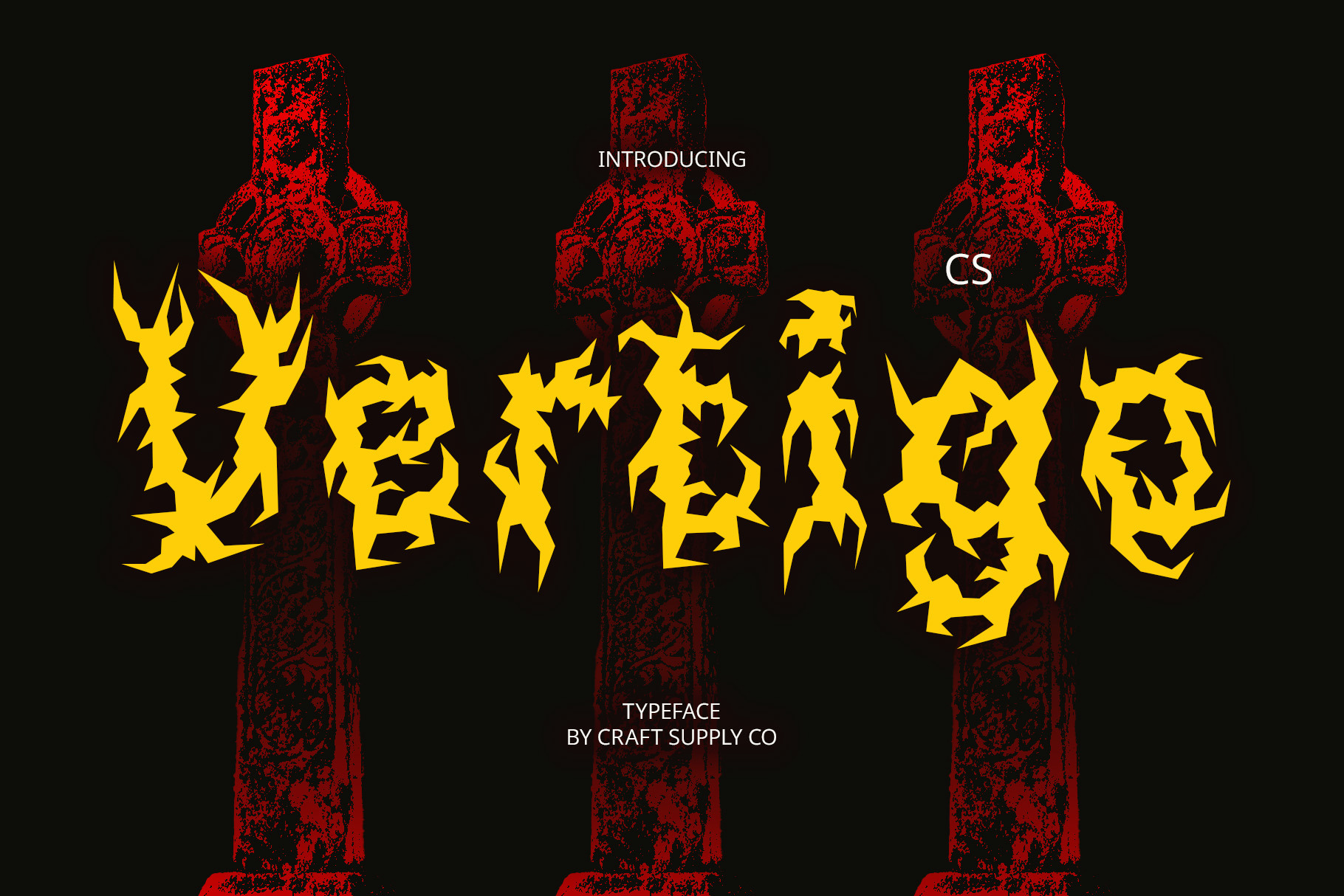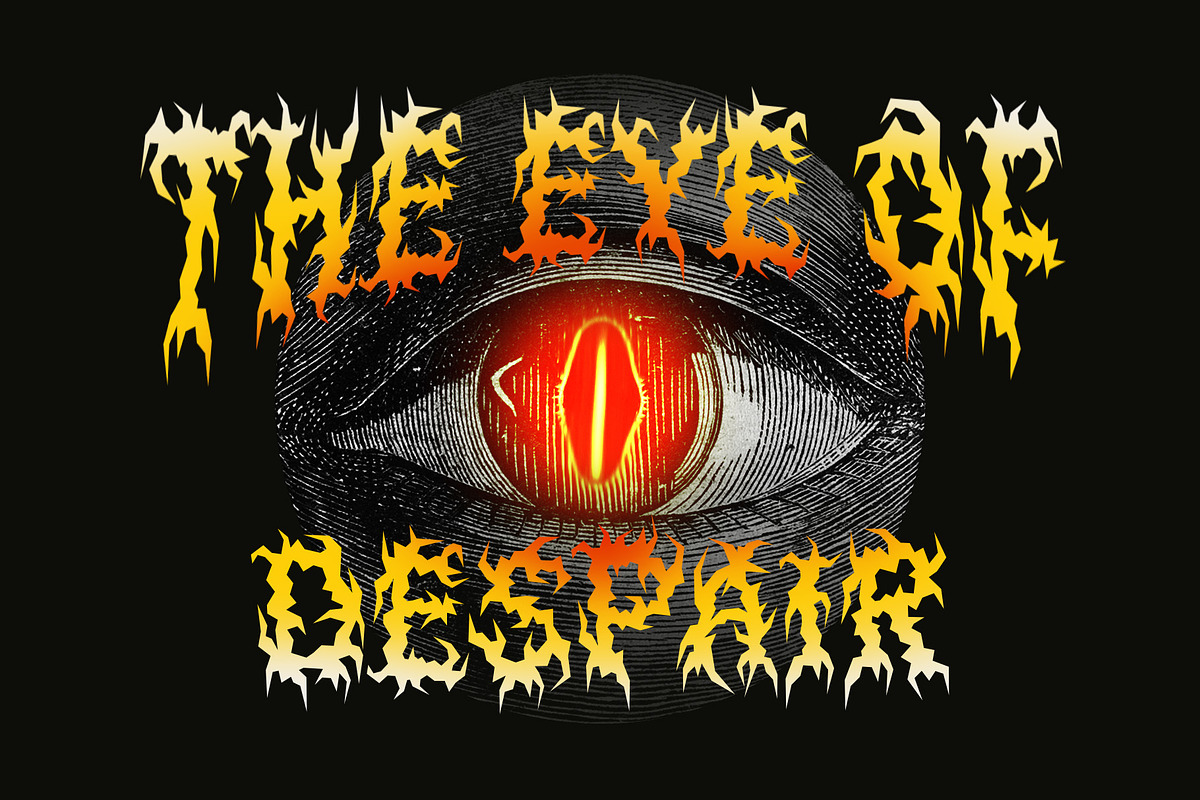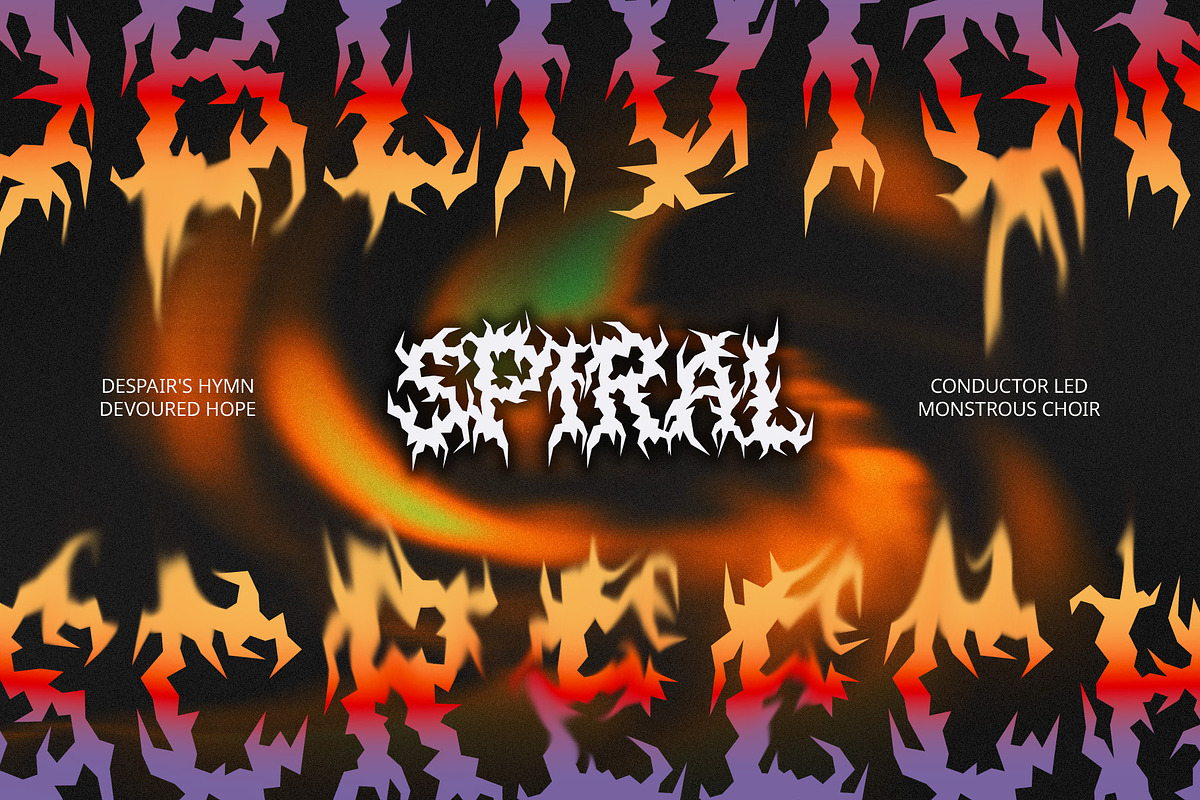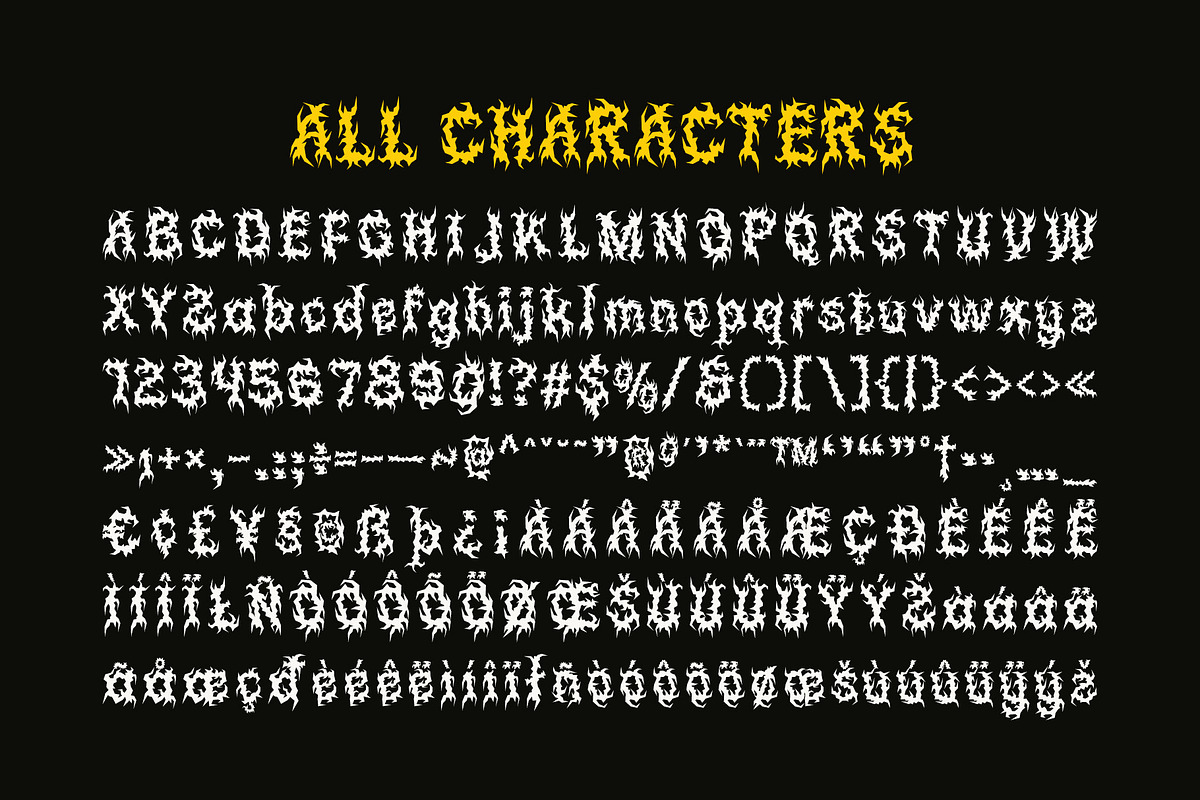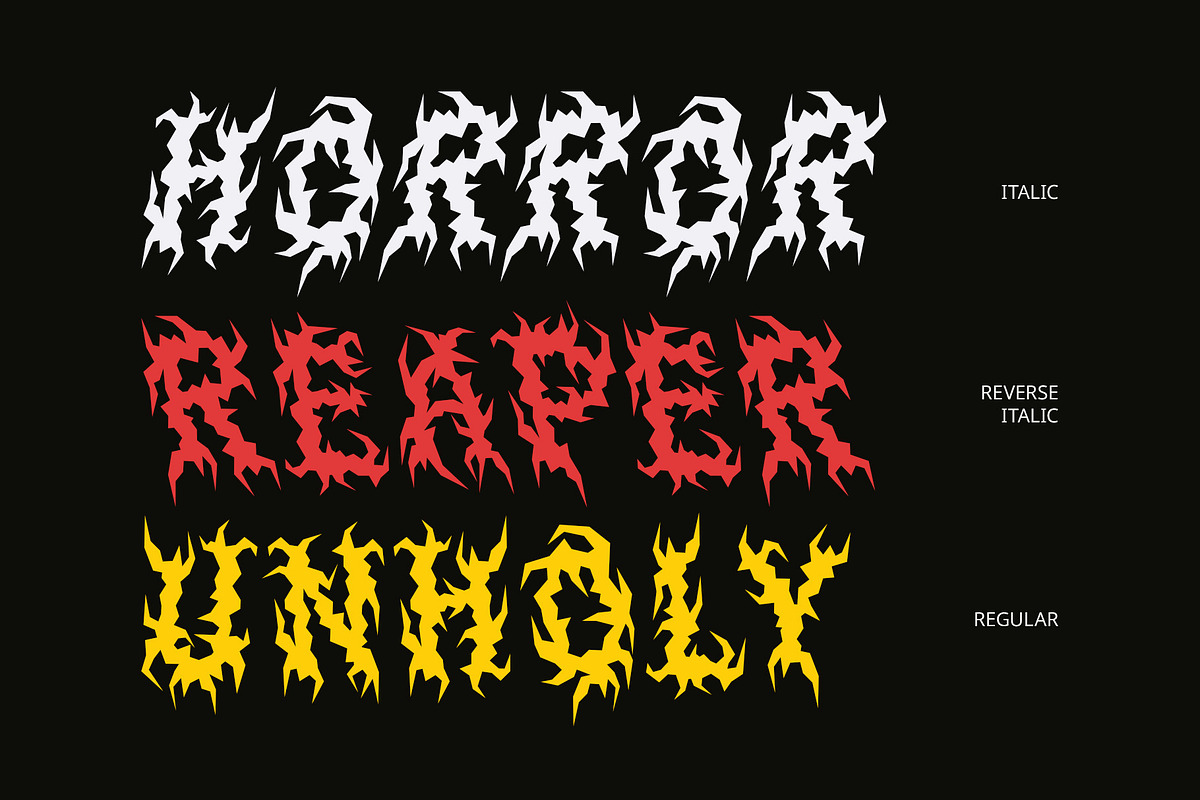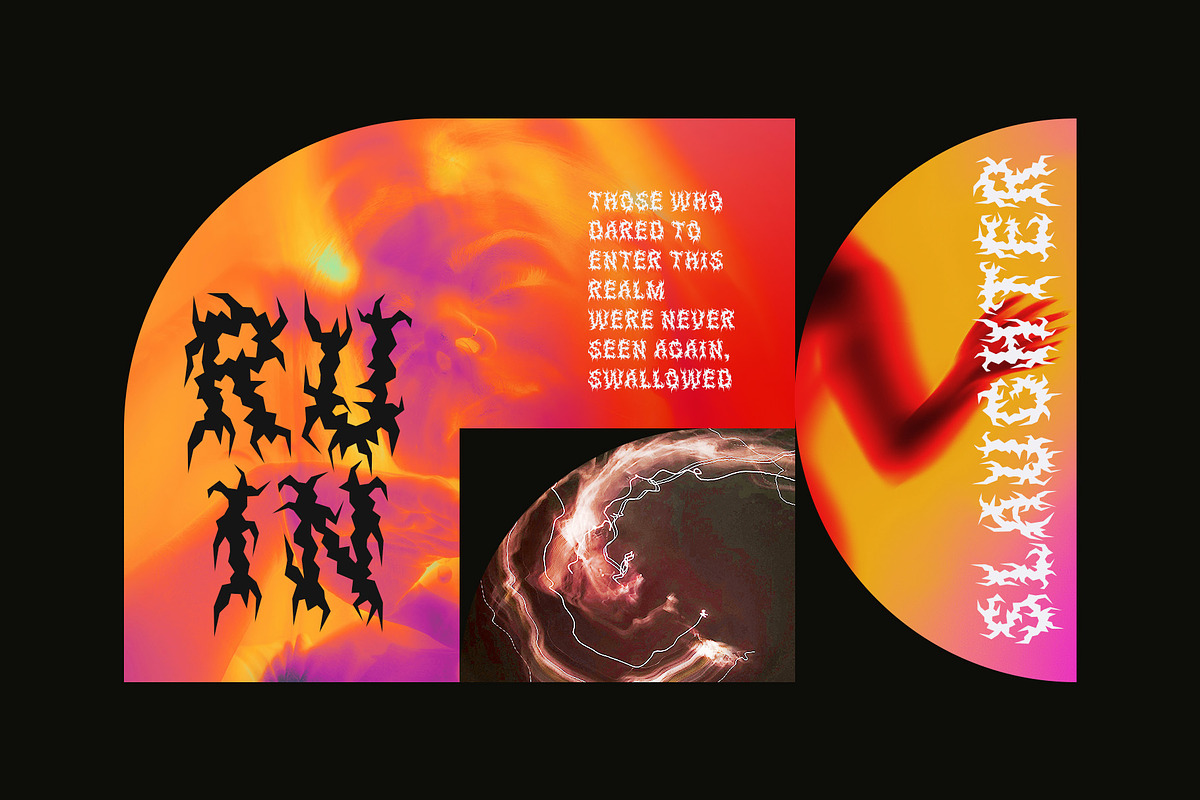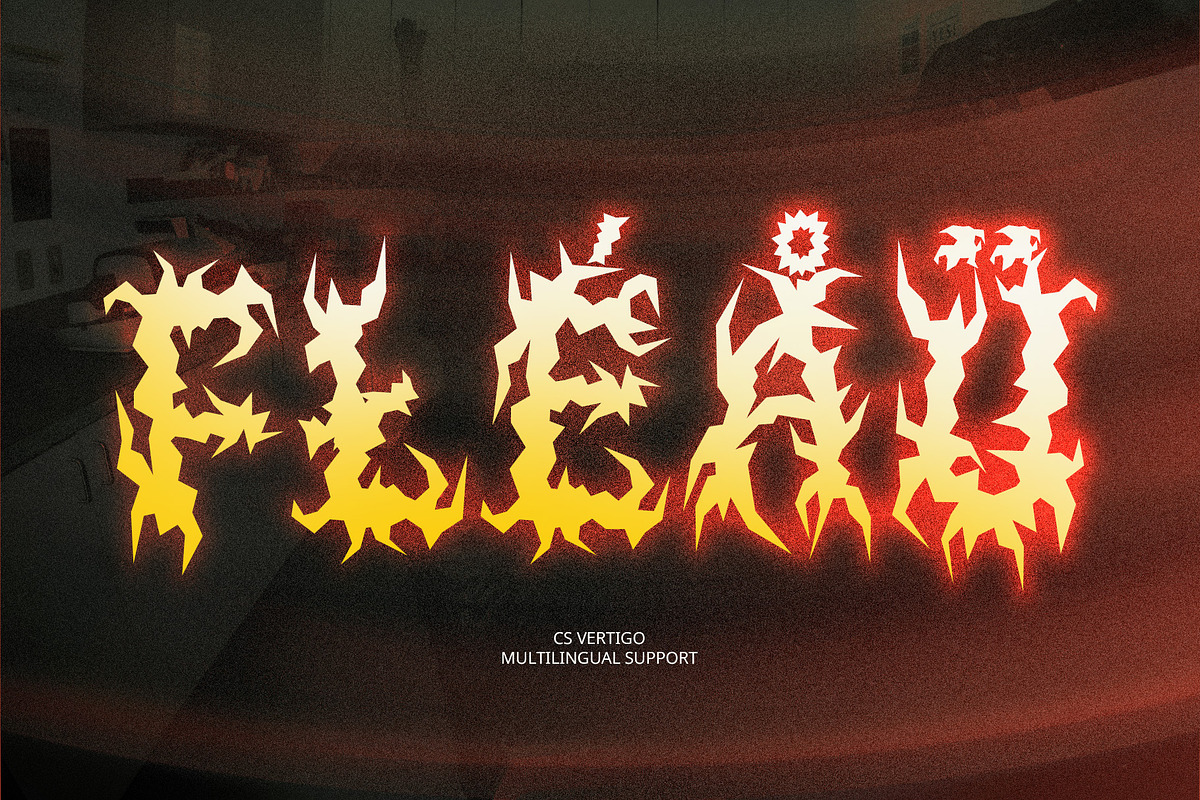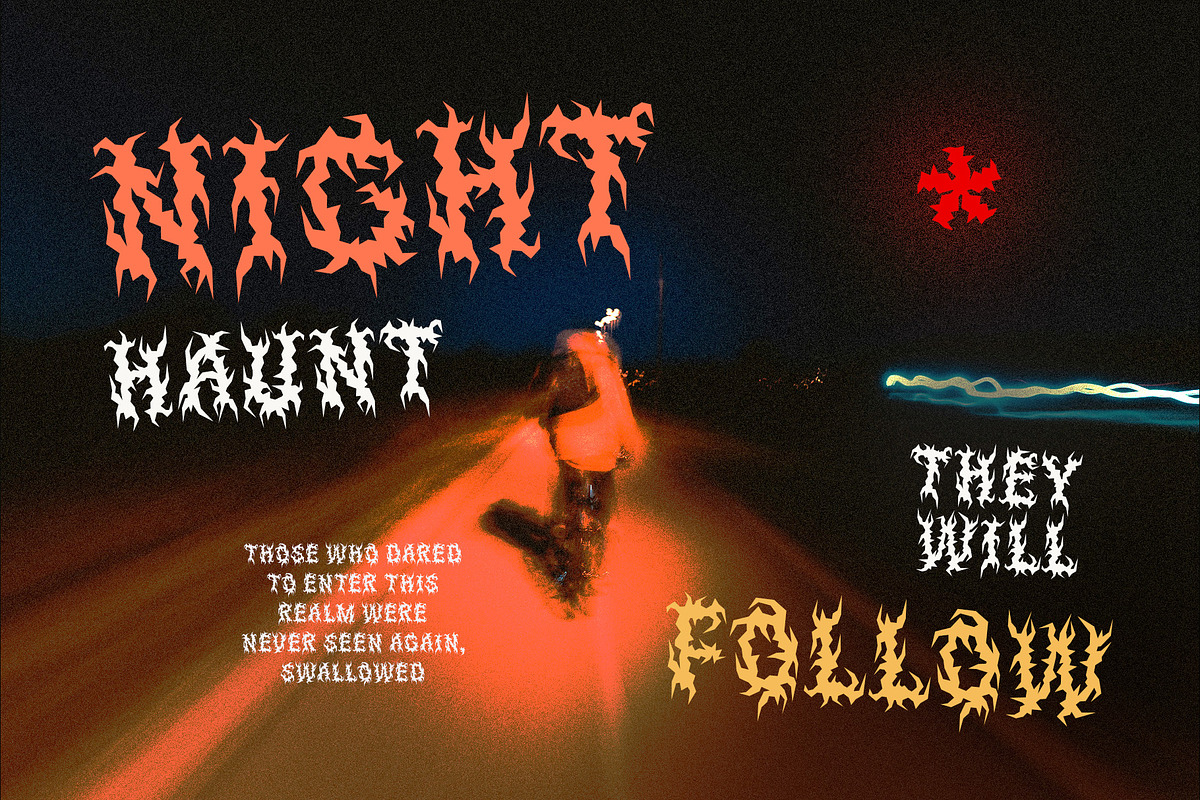
CS Vertigo – Black Metal Font
CS Vertigo – Black Metal Font: Intensity Meets Chaos
Black Metal Style with Extreme Distortion CS Vertigo – Black Metal Font is a display typeface that channels the raw intensity and chaotic energy of black metal aesthetics. With its extreme and striking characteristics, this font features sharp, distorted, and intricate letterforms that evoke the dark, rebellious spirit of the genre.
Intricate and Atmospheric Design The intricate, almost otherworldly design of CS Vertigo adds layers of complexity and atmosphere, perfect for creating a visual presence that is both haunting and dramatic. The detailed forms give it a sense of movement and depth, further enhancing its sinister vibe. It’s a perfect choice for projects that need to capture the essence of darkness and unpredictability.
Bold, Dark, and Anti-Mainstream With its bold, aggressive design, CS Vertigo reflects the anti-mainstream attitude of black metal culture. It’s not just a font; it’s a statement of defiance, perfect for pushing creative boundaries. Whether you’re creating for extreme music genres, horror, or gothic visuals, this font delivers an unmistakable sense of power and rebellion.
Perfect for Extreme Music, Horror, and Dark Branding CS Vertigo excels in music-themed designs, from metal album covers to concert posters, and beyond. Its bold, atmospheric design is also well-suited for horror films, gothic branding, and any visual project that seeks to convey a brutal, anti-mainstream vibe.
- CS Vertigo Regular
- CS Vertigo Italic
- CS Vertigo Reverse Italic